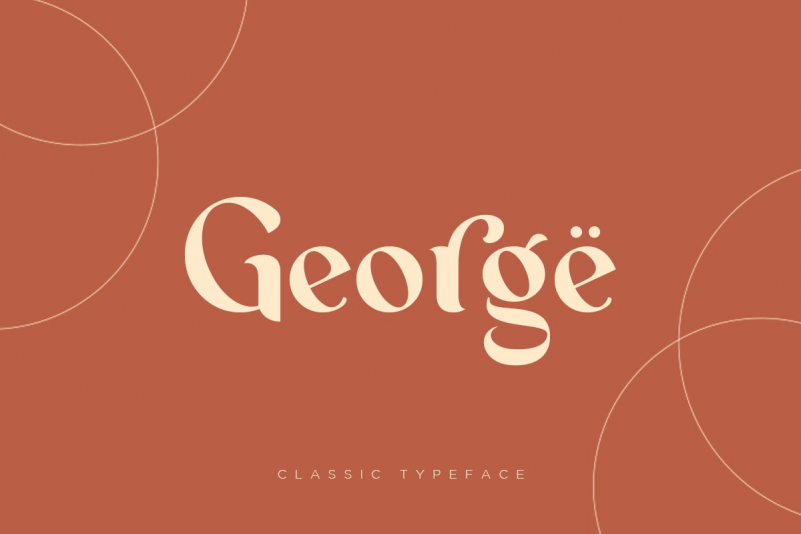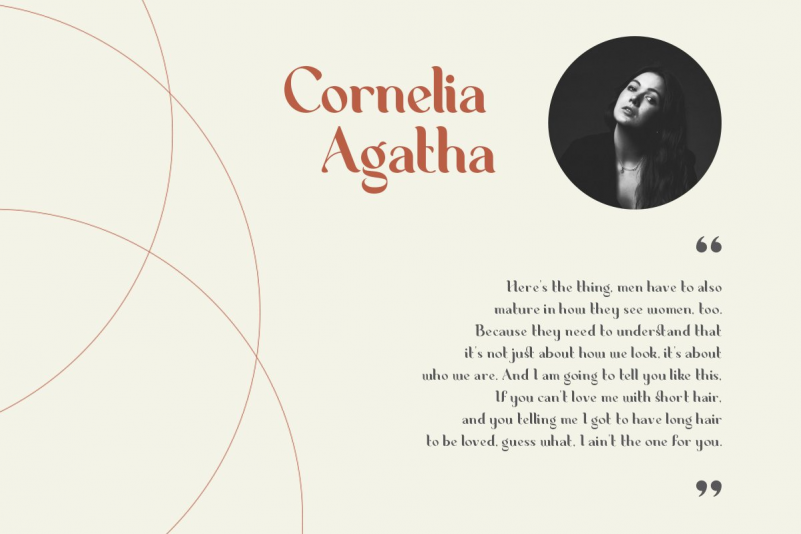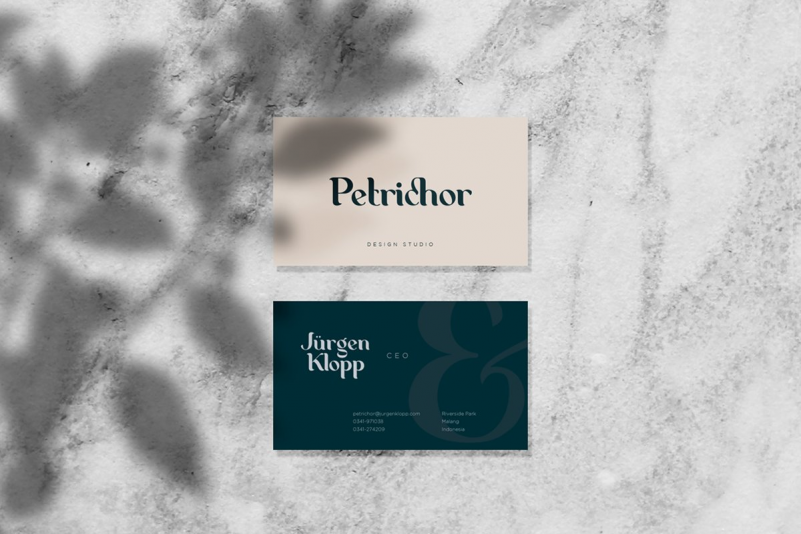
George Font
George is a classic serif typeface. Create bold, gorgeous headlines and elegant designs with a vintage flair. George’s contrasting lines and curved terminals give a sleek, elegant look to logos, holiday cards, wedding invitations, quotes, advertisements, and more.
George has full set of classic uppercase and lowercase letters, numerals, punctuation, also multilingual symbols. It included opentype features like ligature, alternate and many others.